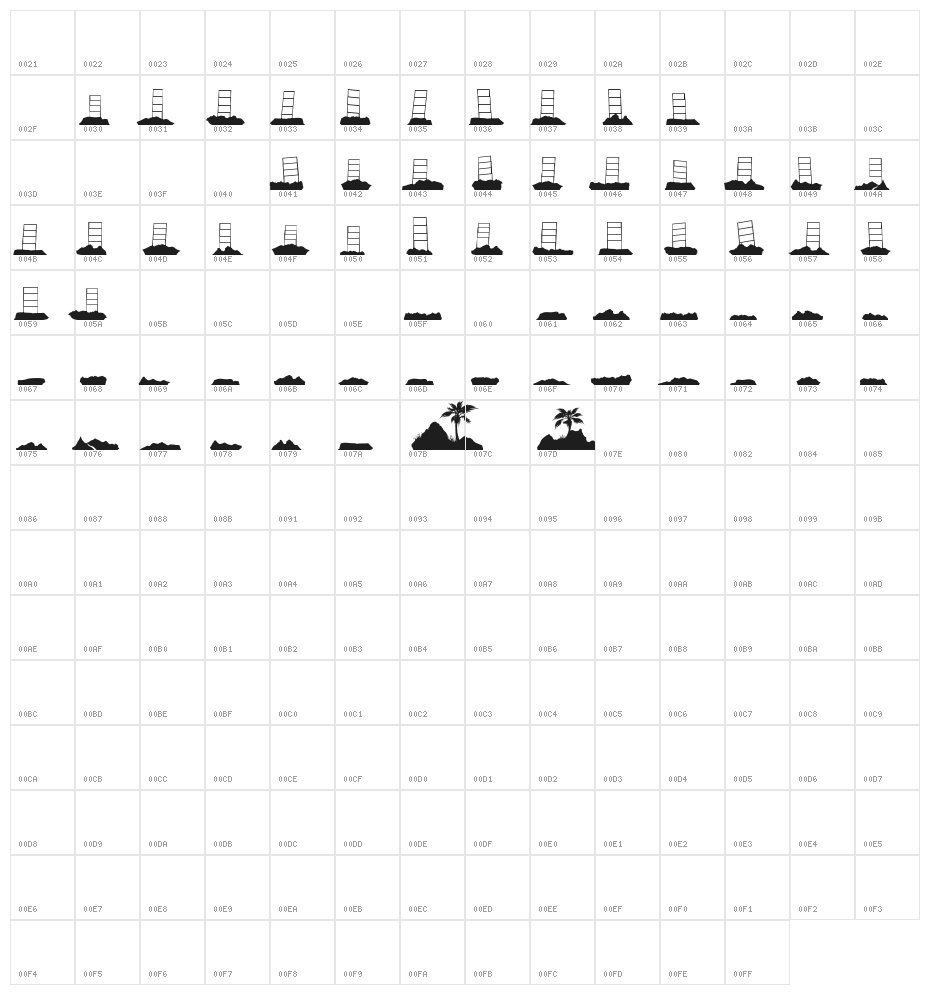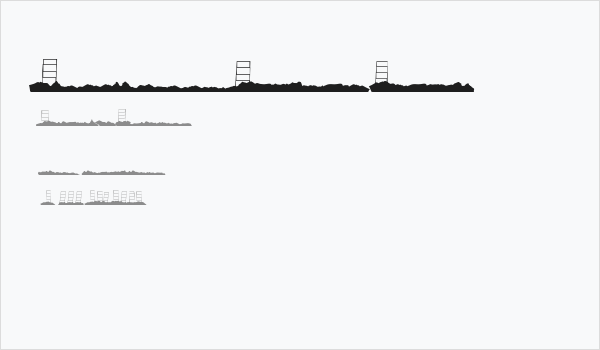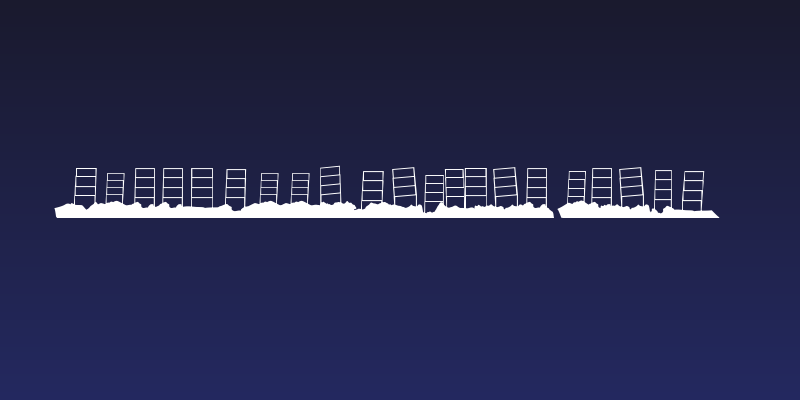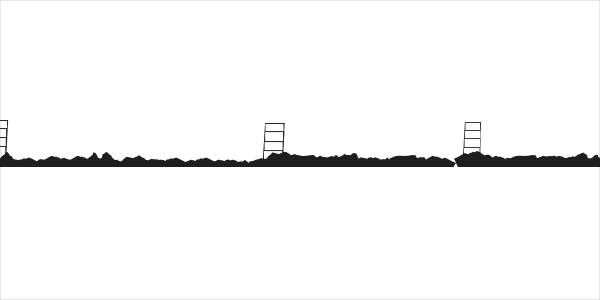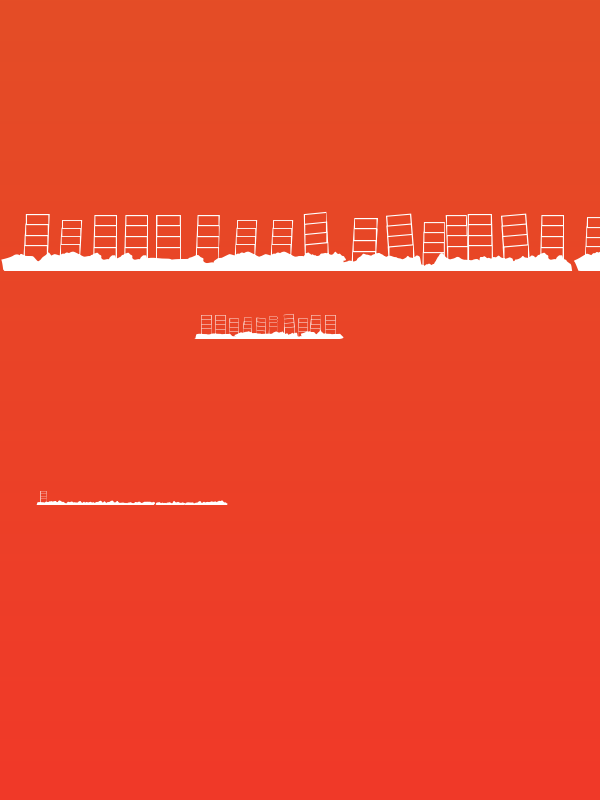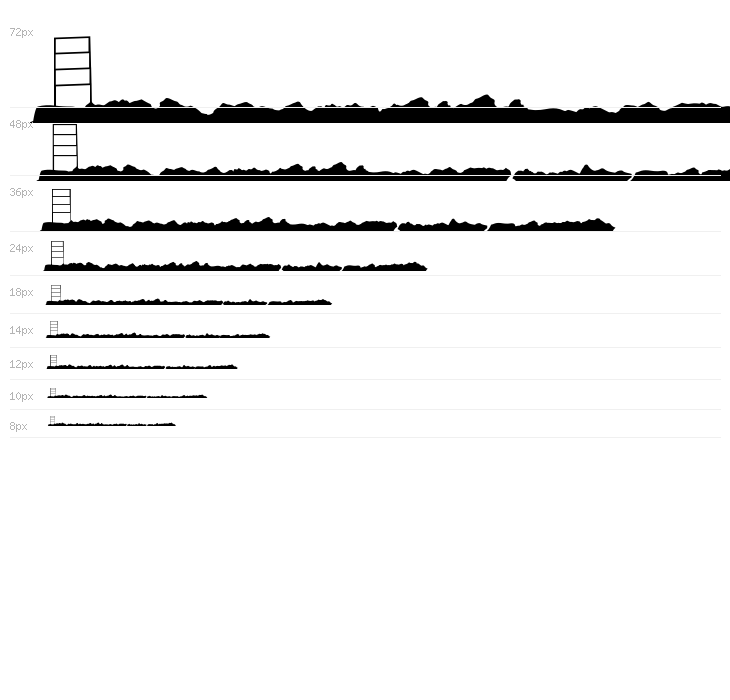
Hollywood Capital Blank Font
Hollywood Capital Blank Description
This design is a creative representation of the iconic Hollywood sign, featuring tall, rectangular shapes that mimic the famous landmark. Each character is depicted as a series of vertical and horizontal lines forming a grid-like structure, with a solid black silhouette of a hill or mountain range at the base. The letters are not traditional in form but rather abstract, capturing the essence of the Hollywood sign's structure and setting. The overall appearance is bold and eye-catching, making it suitable for projects that require a strong visual impact.
| Use Case | Logos, Posters, Event Invitations |
| Proposed Projects | Ideal for movie-themed events, Hollywood-inspired designs, or creative projects that require a bold, iconic look. |